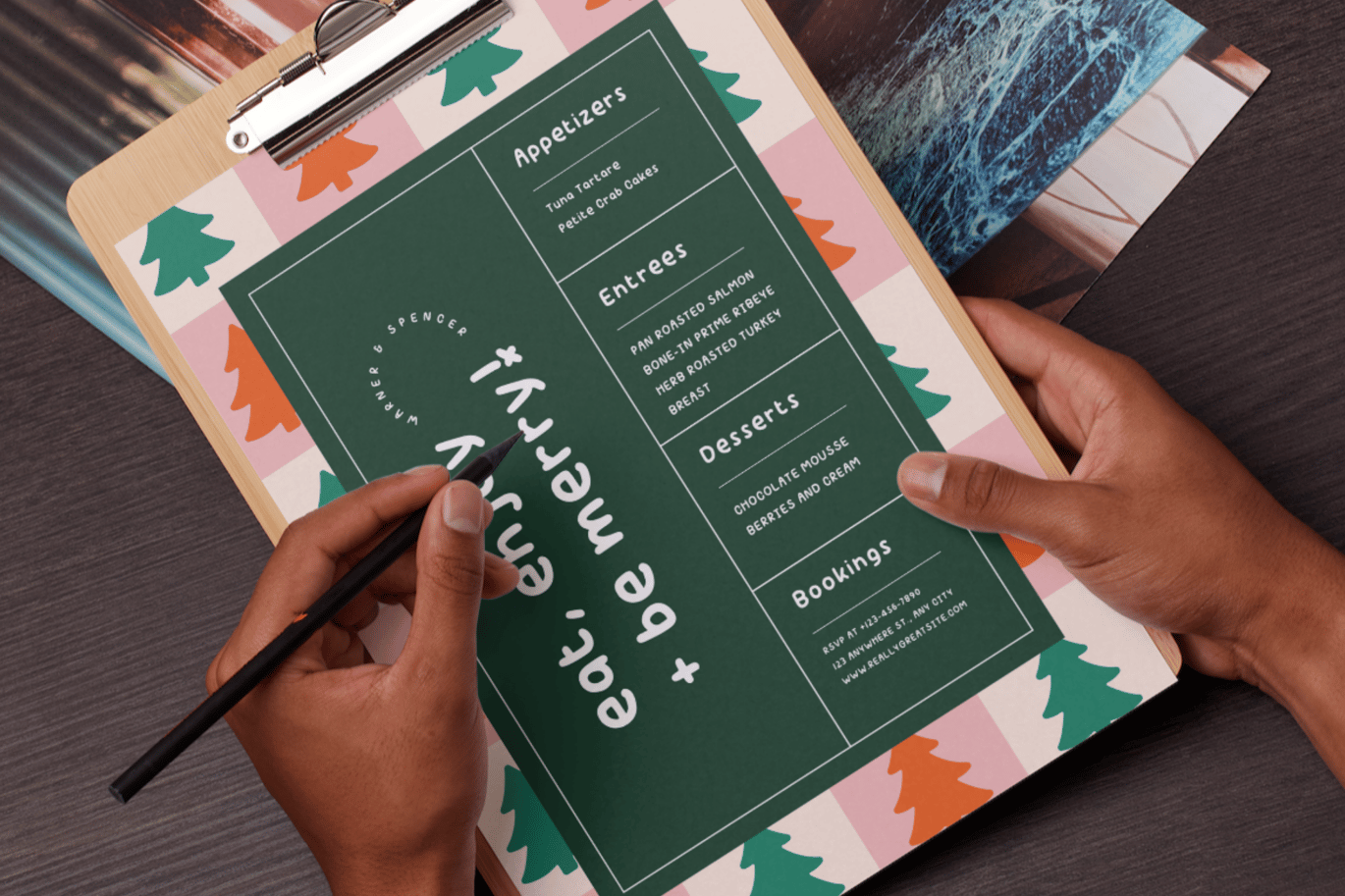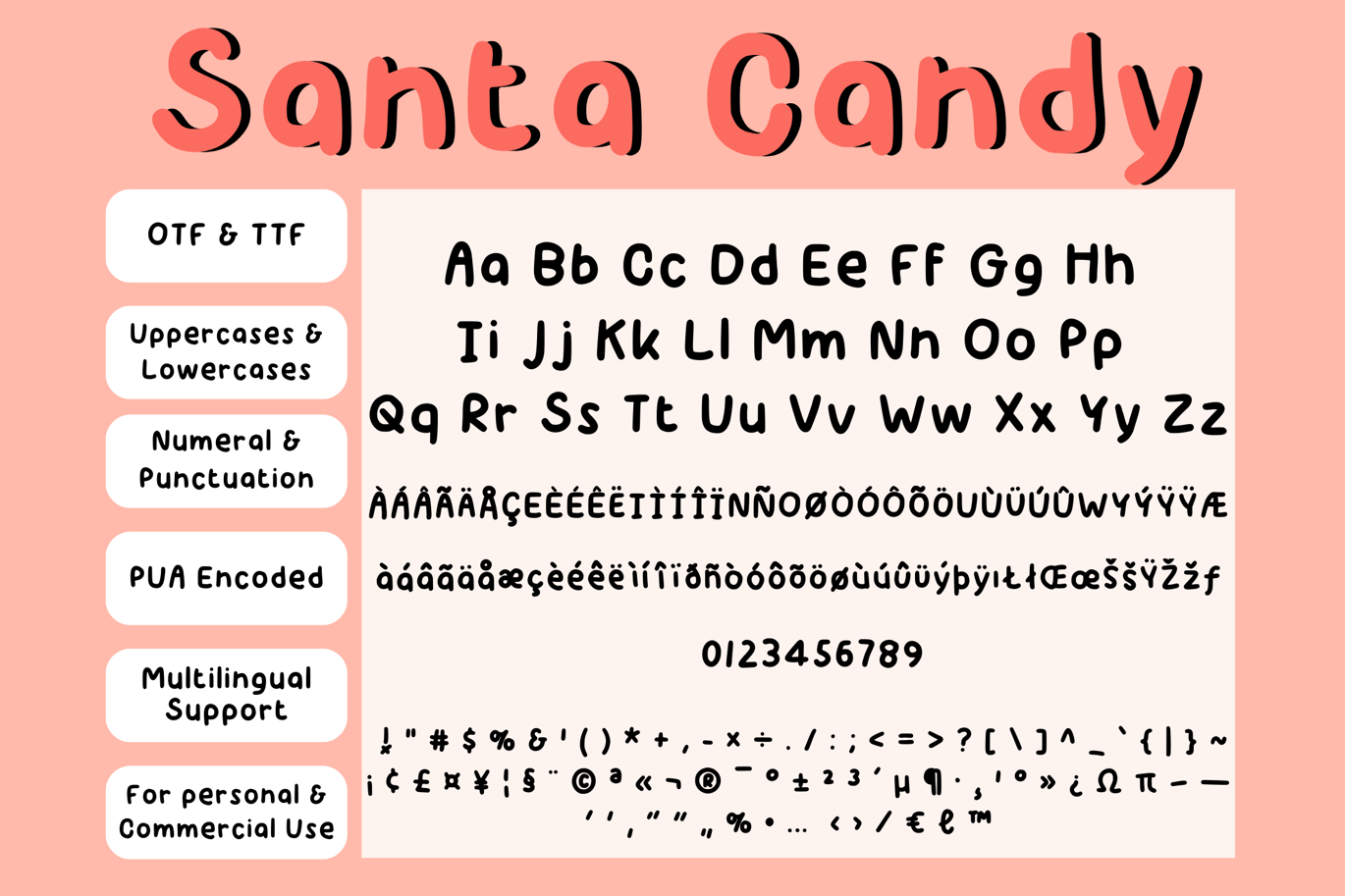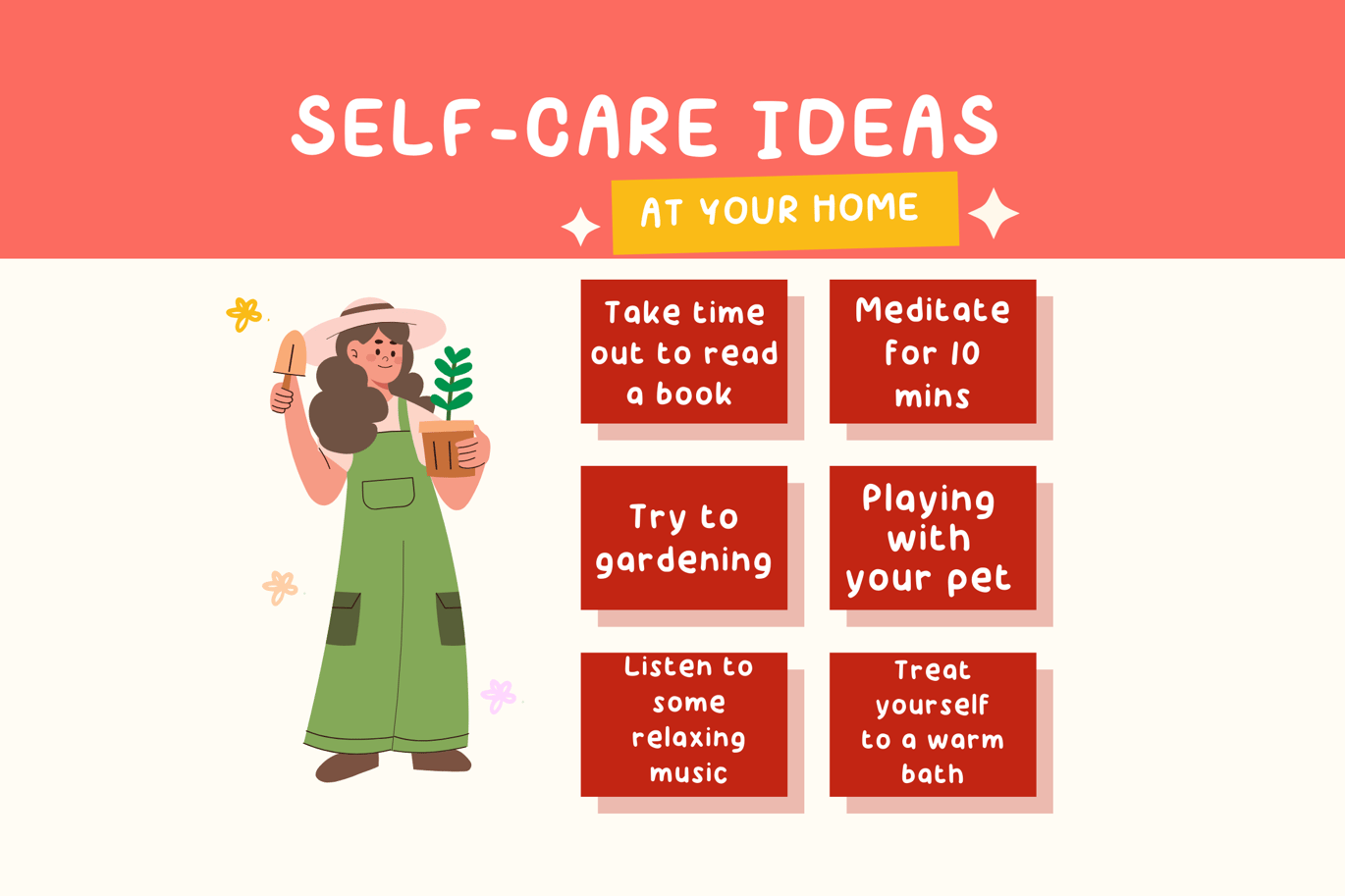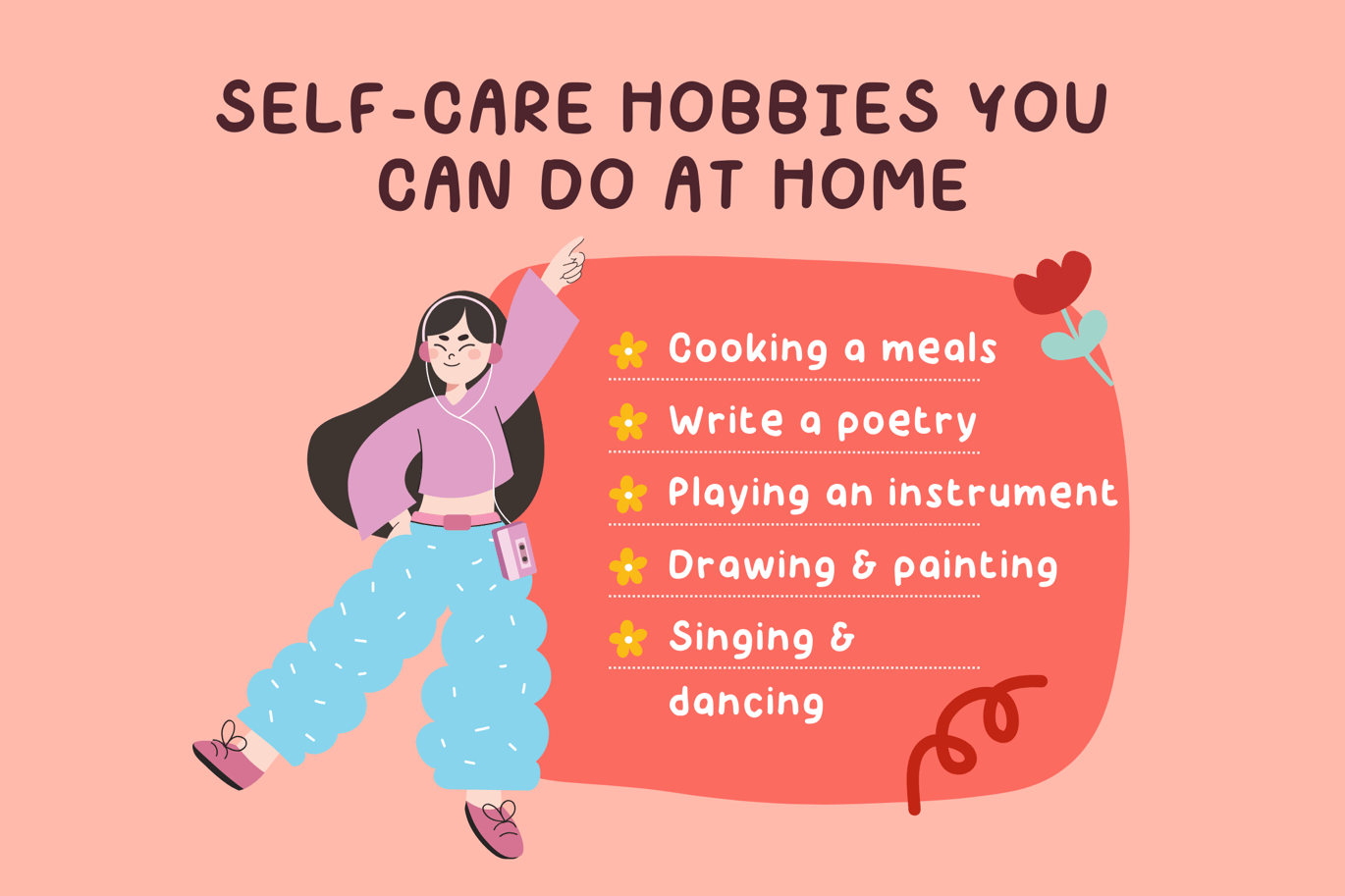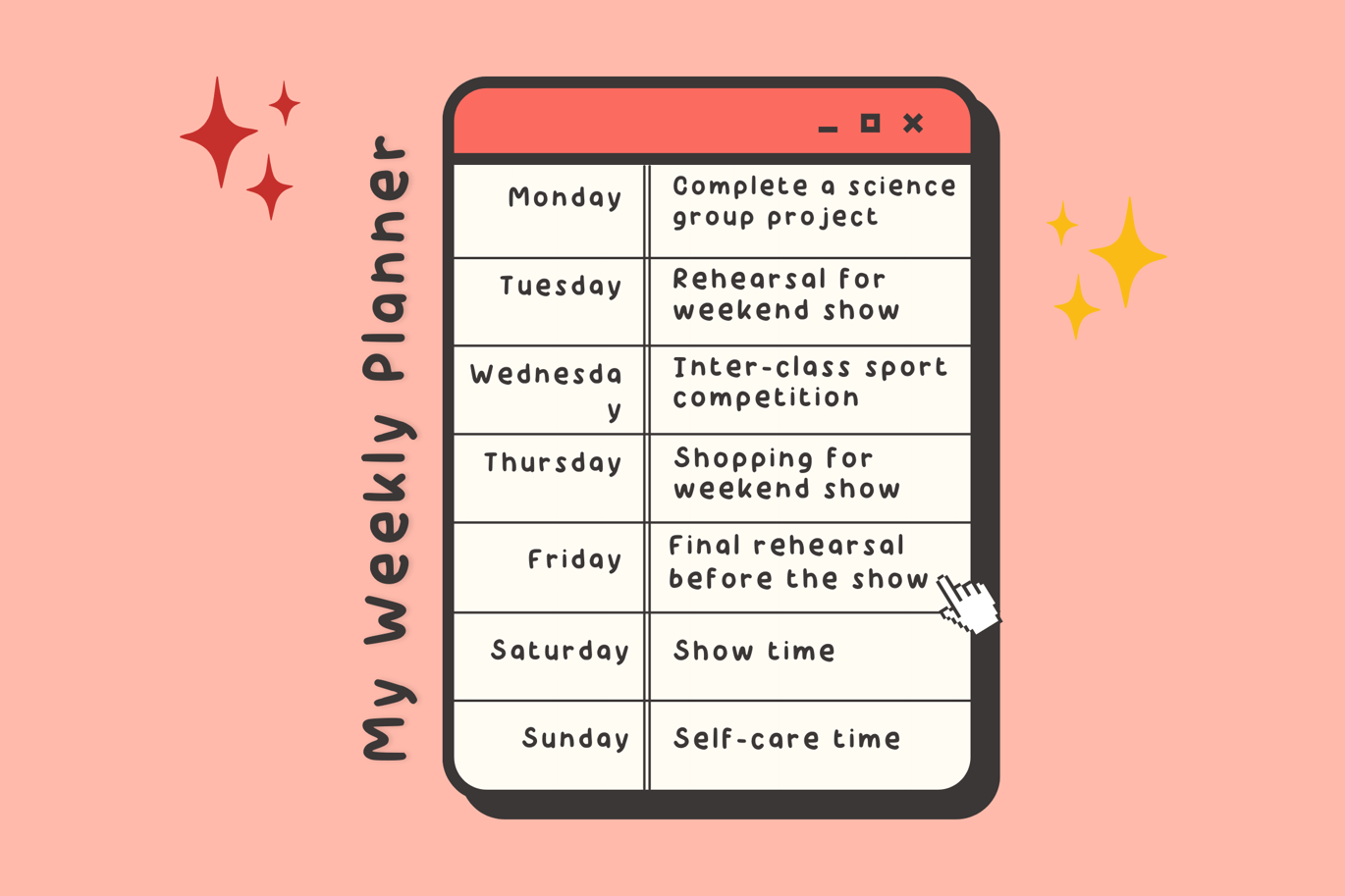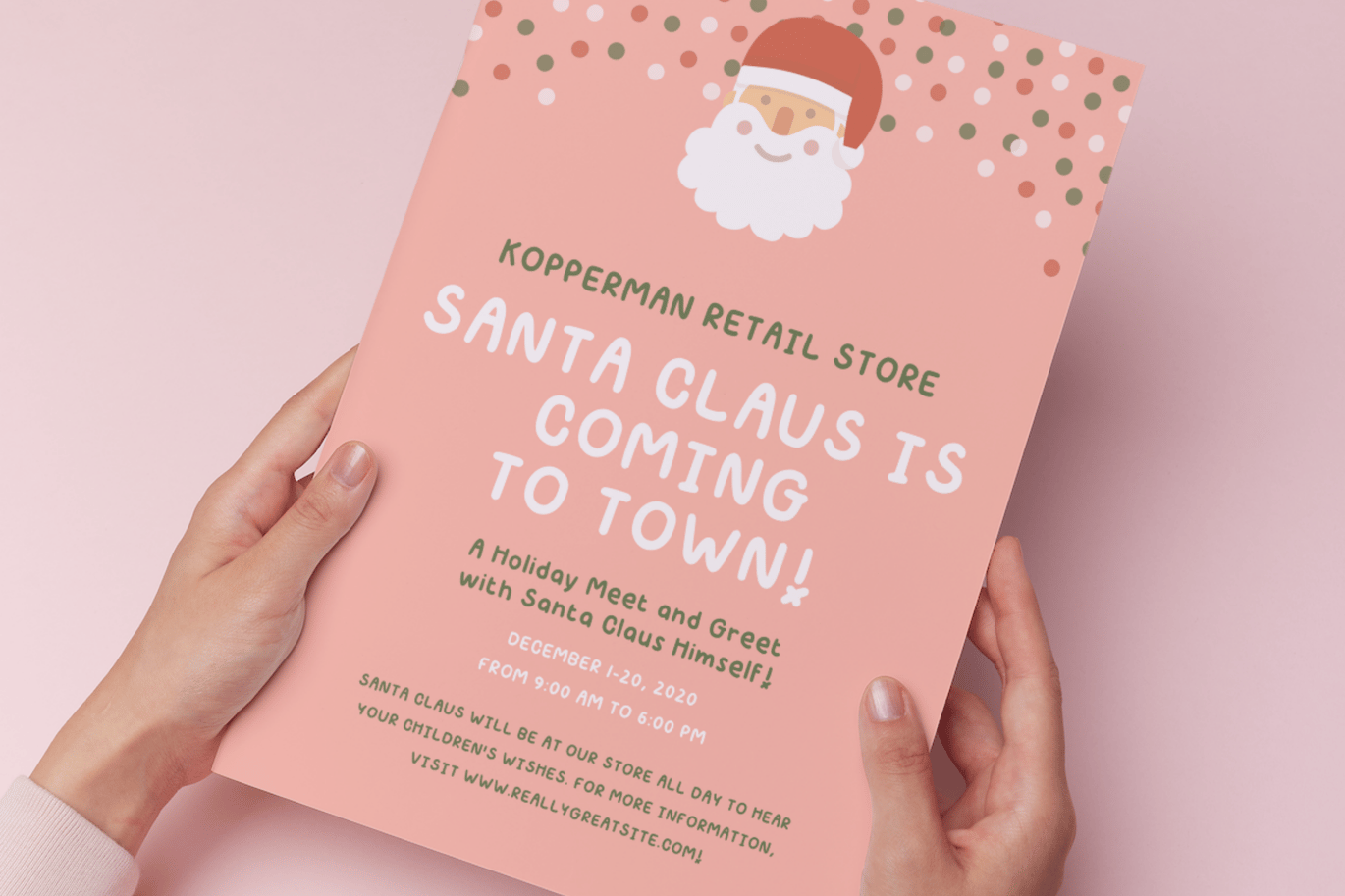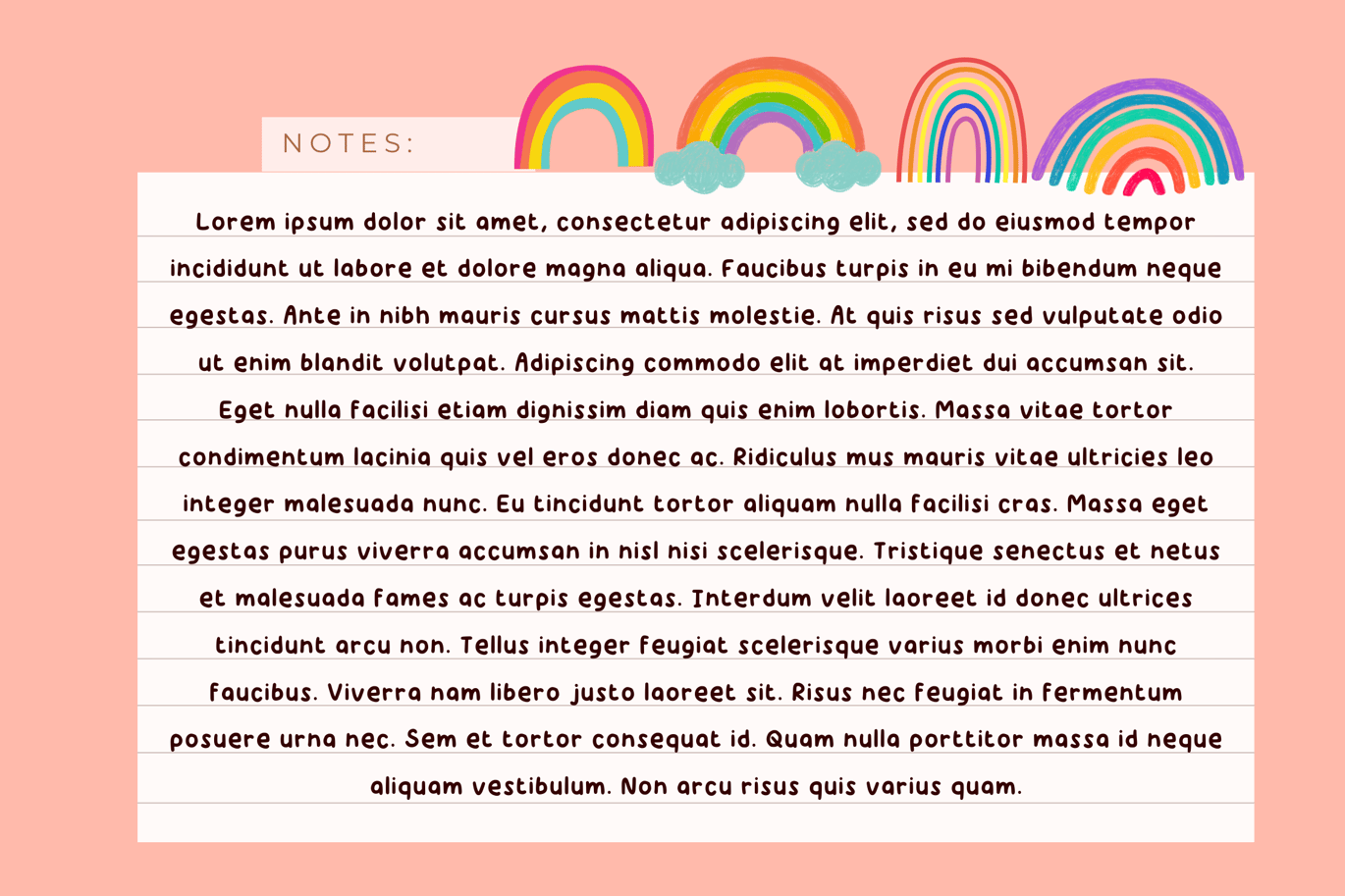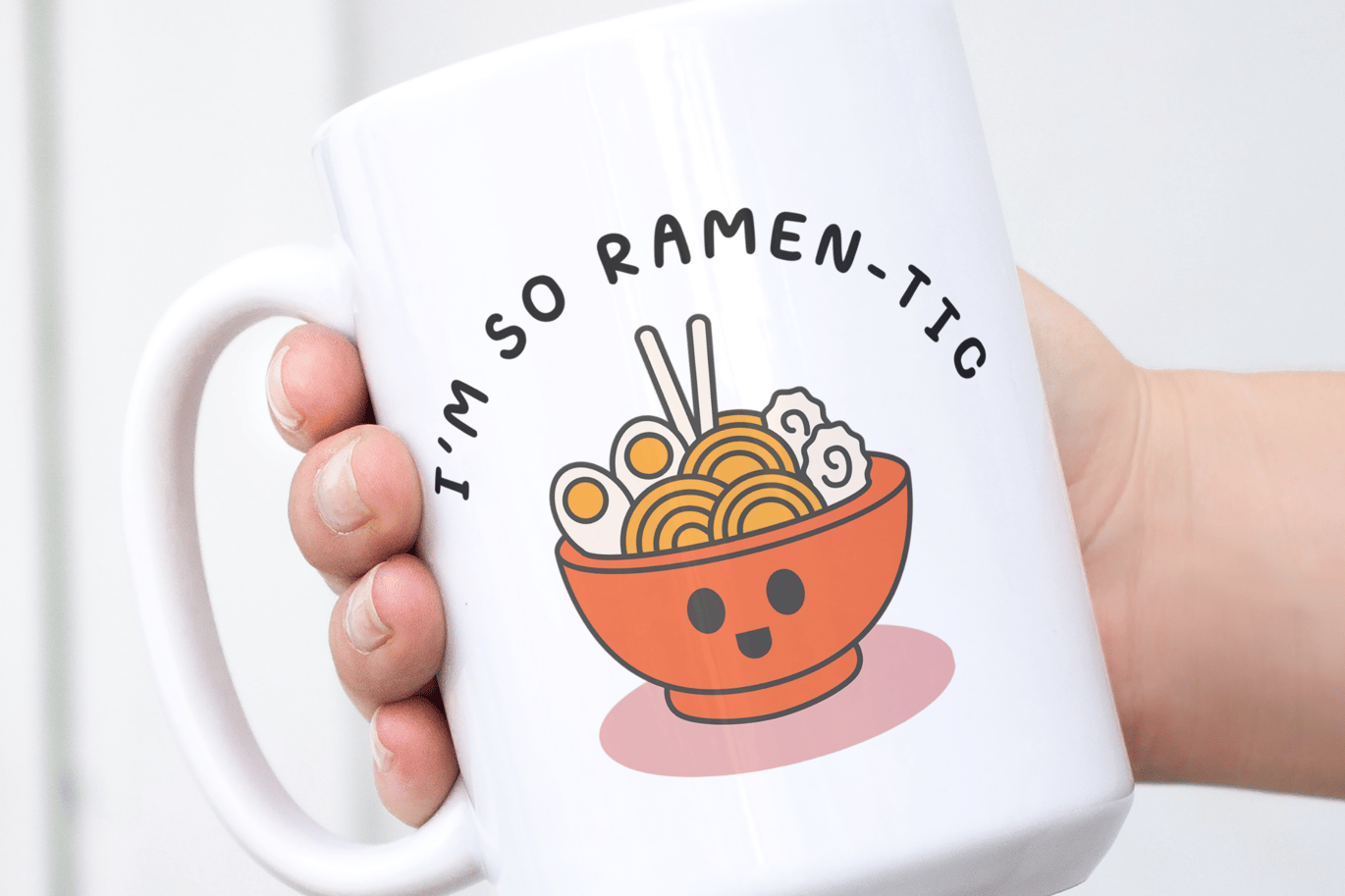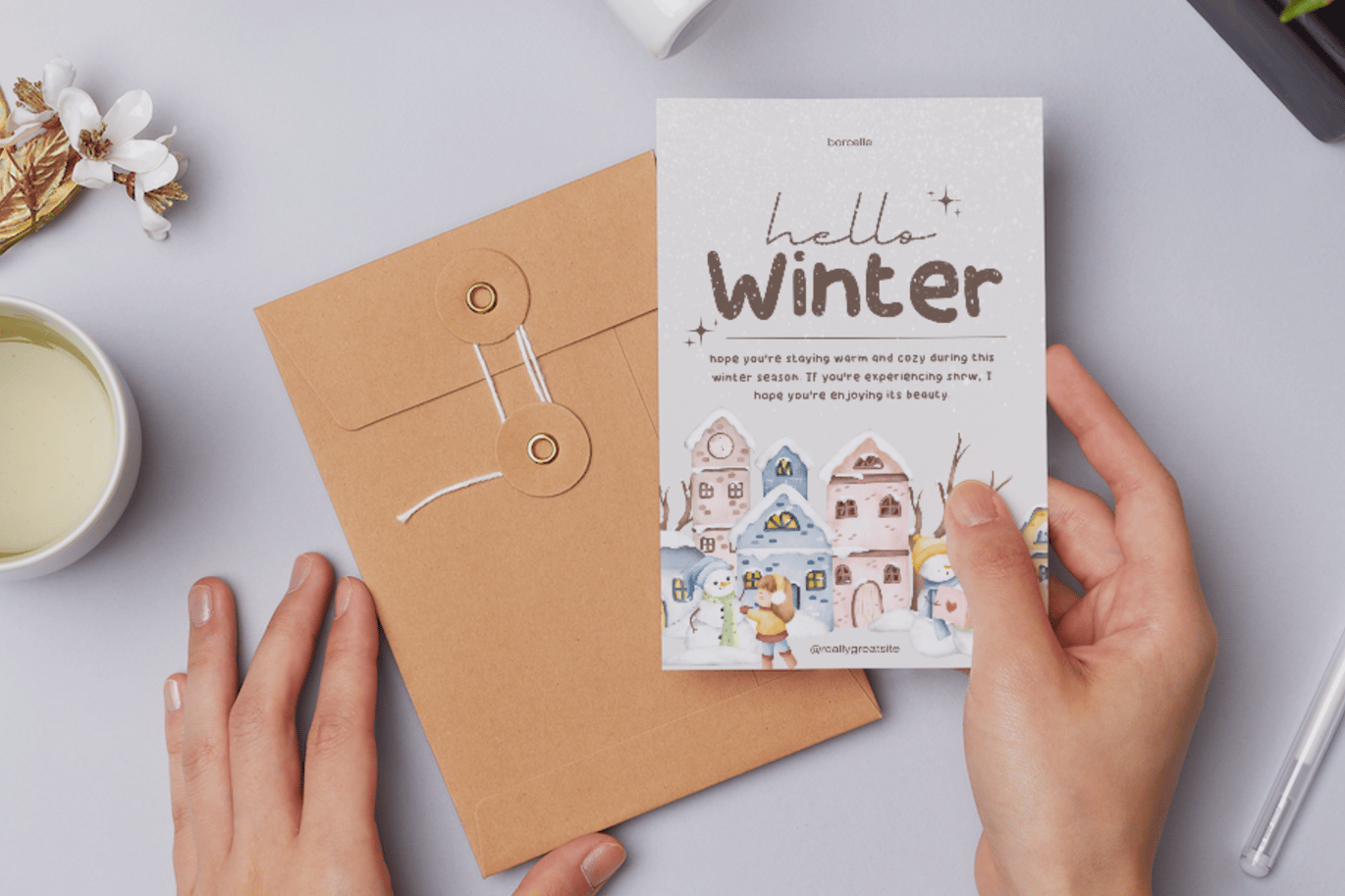
Santa Candy Christmas Handwritten Font
Rainbow Candy font is a very neat handwritten font that can be used as a Bold Handwritten Font, Christmas Font, Santa Christmas Greeting Font, Sweet Candy Font, Scrapbook Font, Bubble Craft Font, Digital Note Font, Kid Handwriting Font, Marker Font, Label Font, School name tag font
It is perfectly suitable for numerous use, such as quotations, banners, logos, product packaging, titles, headers, menu lists, etc. Also, this font can work well on iPad planners, digital planners, GoodNotes templates, as well as other digital notes and journals